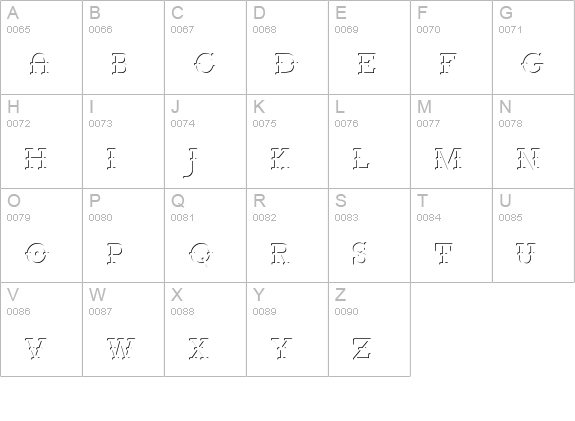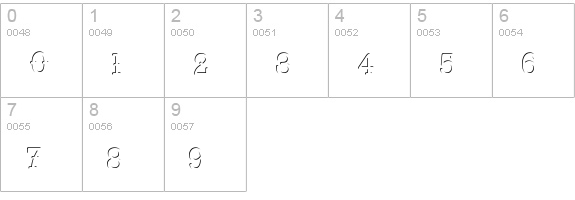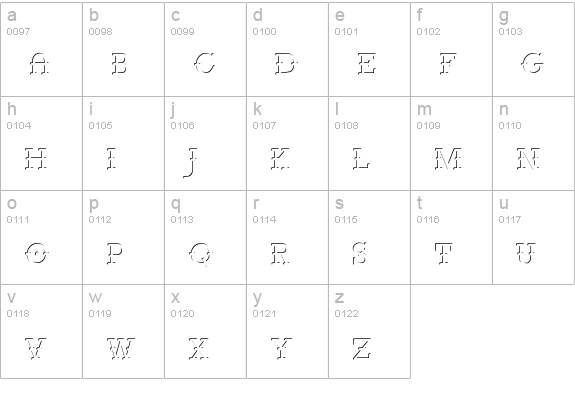
Retro Pop Inline font is a delightful display typeface that exudes a fun and playful retro vibe. With its bold outlines and vintage-inspired styling, this font is perfect for adding a touch of nostalgia to your designs. The sleek inline detailing gives it a modern twist, making it a versatile choice for various creative projects. Best of all, Retro Pop Inline font is available for free download at FontsMarket.com. This means you can easily add this charming font to your collection without breaking the bank. Whether you're working on a poster, logo, or branding project, Retro Pop Inline font is sure to make a statement and capture the essence of the retro era. Download it today and let your creativity shine!